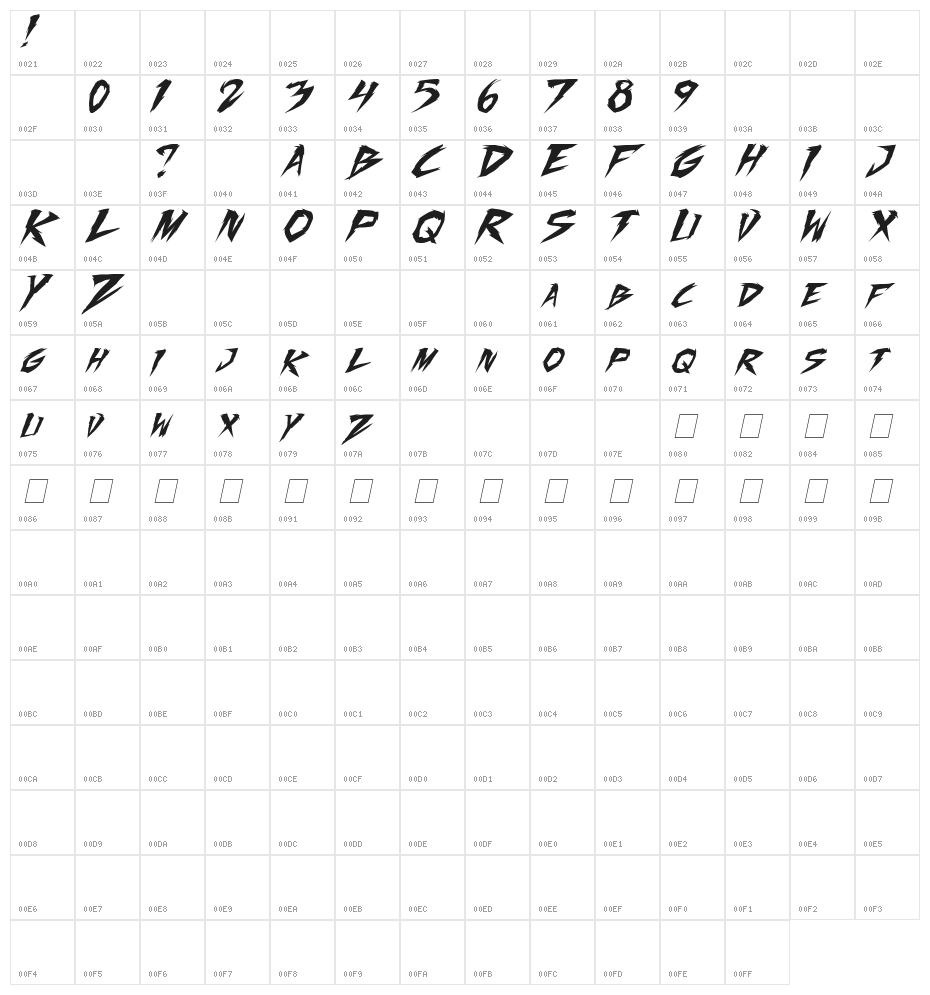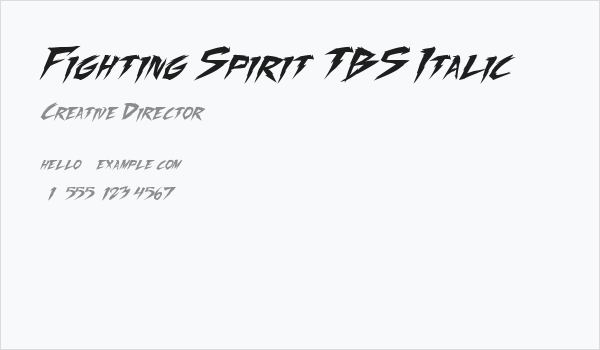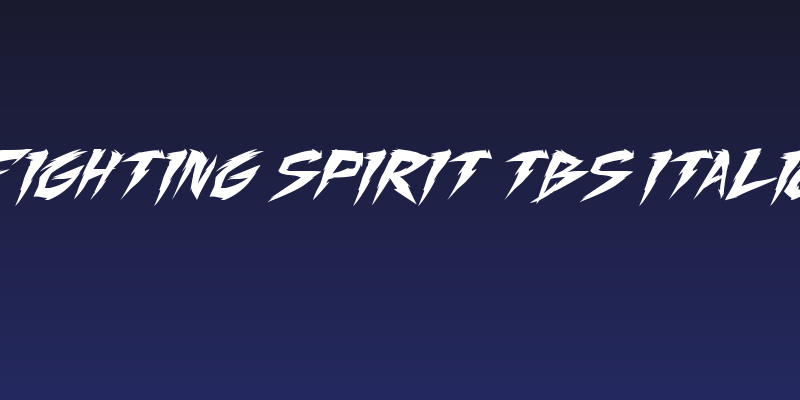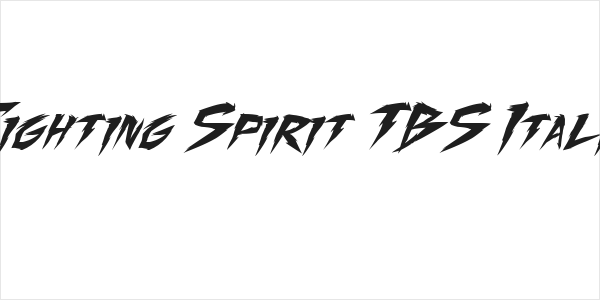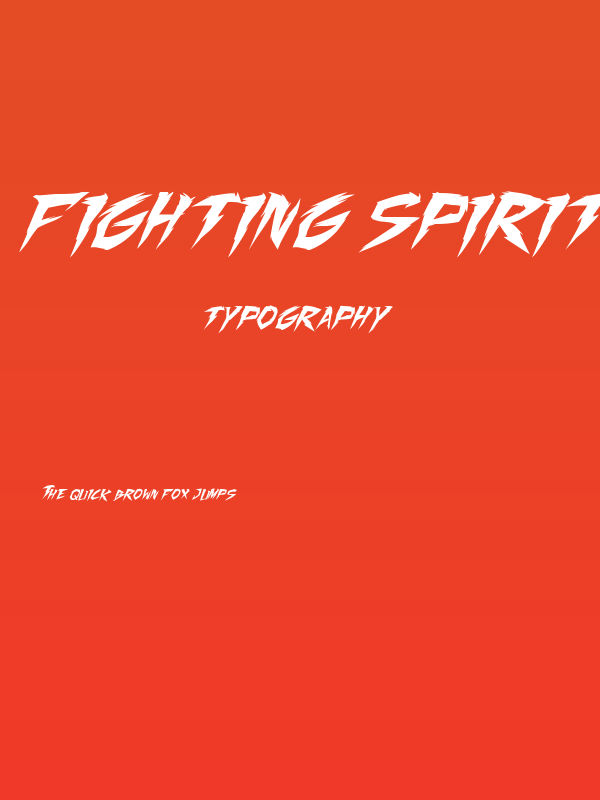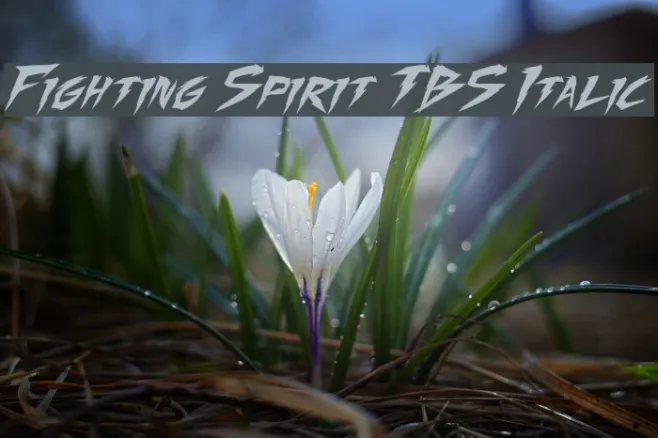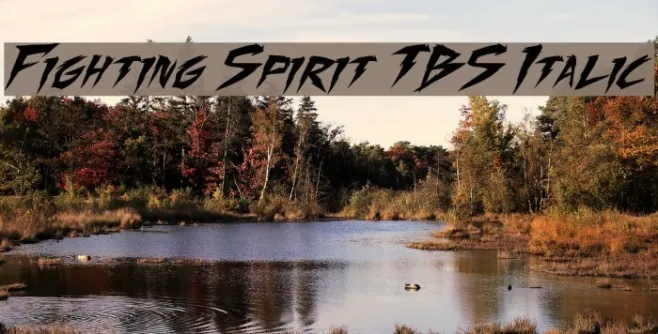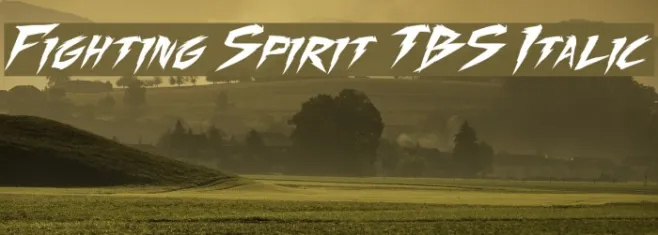
Fighting Spirit TBS Italic Font
Fighting Spirit TBS Italic Description
This font exudes a dynamic and aggressive energy, characterized by sharp, angular strokes and a bold presence. Each letter appears to be in motion, with jagged edges that suggest speed and intensity. The italicized style enhances this sense of movement, making it ideal for projects that require a sense of urgency or action. The uppercase and lowercase letters maintain a consistent style, ensuring readability while still conveying a strong visual impact. The numbers and special characters follow the same design principles, making them cohesive with the overall aesthetic.